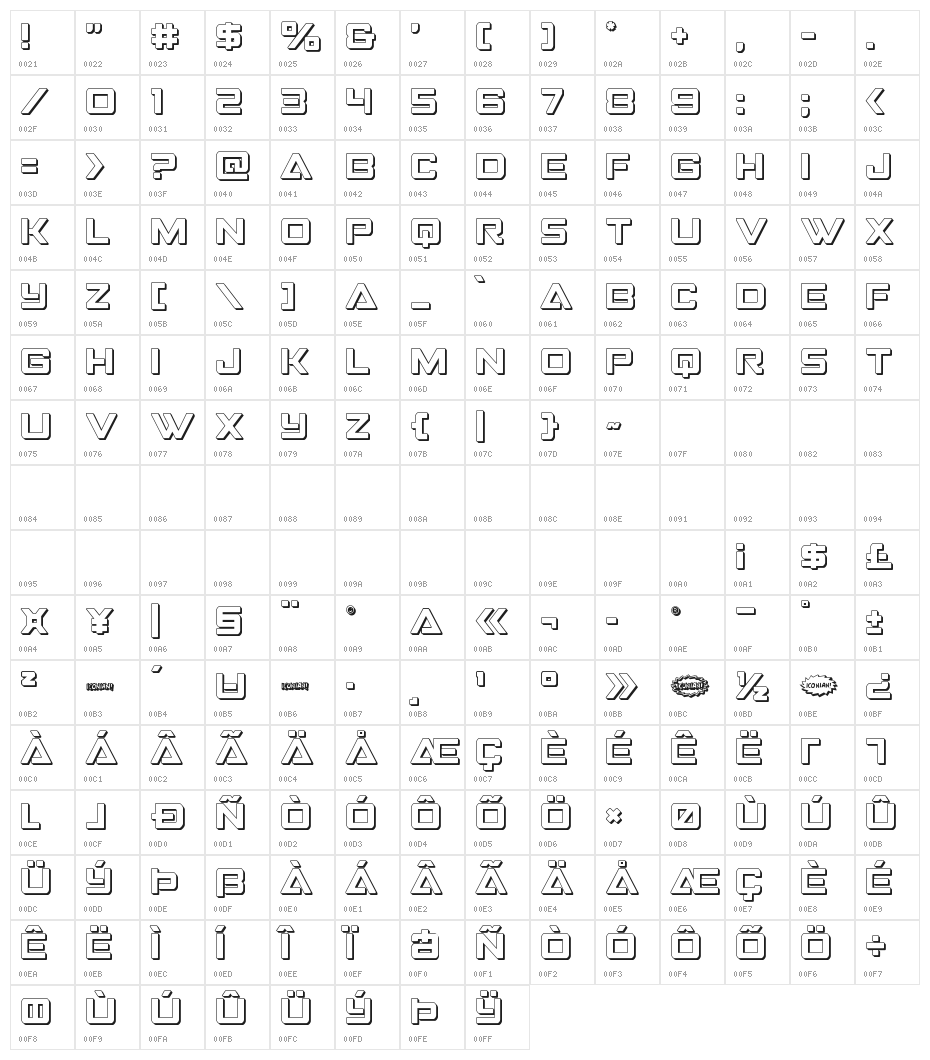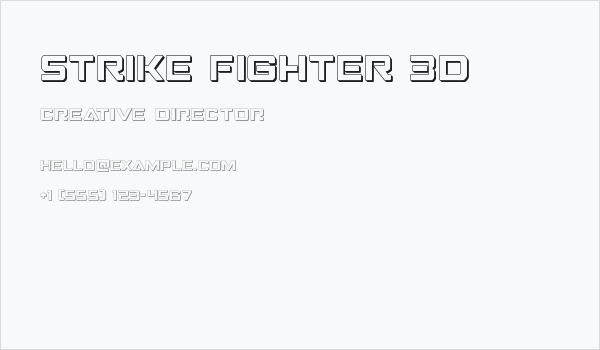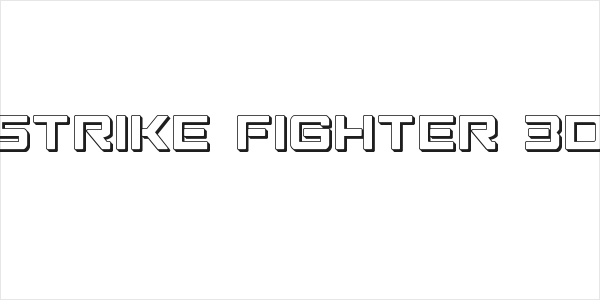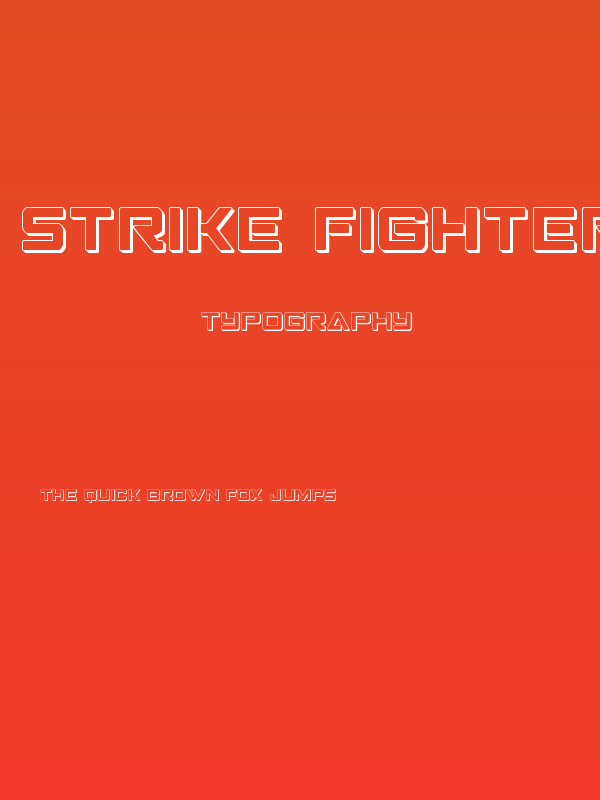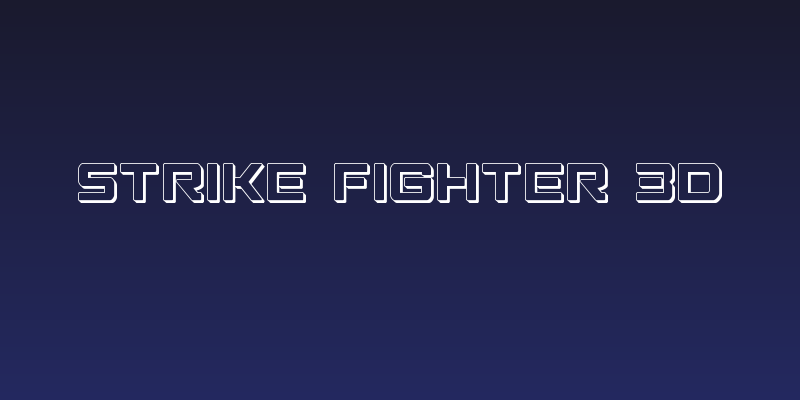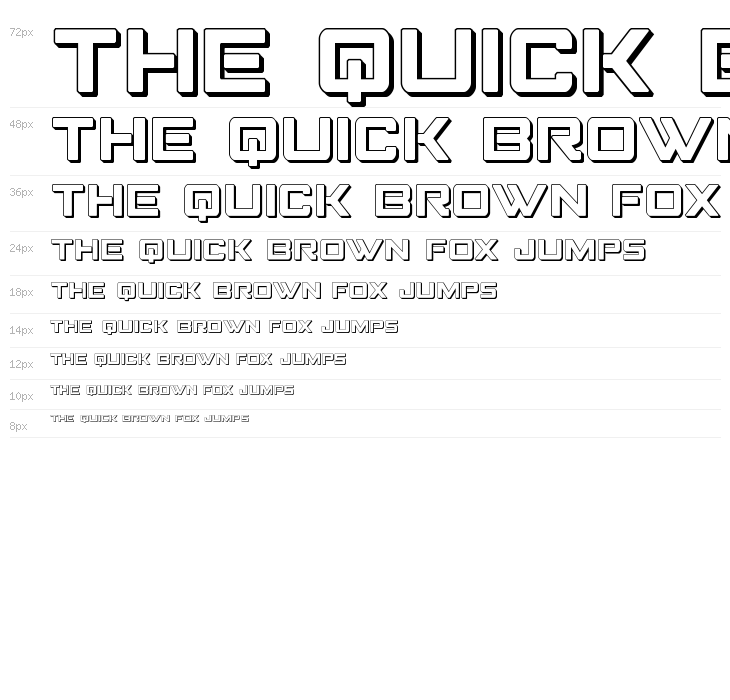
Strike Fighter 3D Font
Strike Fighter 3D Description
This font features a bold, geometric style with a three-dimensional effect, giving it a futuristic and dynamic appearance. The characters are outlined, creating a sense of depth and movement. The uppercase letters are angular and sharp, while the numbers maintain a consistent geometric form. Special characters are designed to match the overall aesthetic, making them suitable for attention-grabbing designs. The font's structure is clean and precise, with a modern edge that makes it ideal for digital and print media.
| Proposed Projects | Ideal for video game titles, tech branding, futuristic posters, and digital interfaces. |